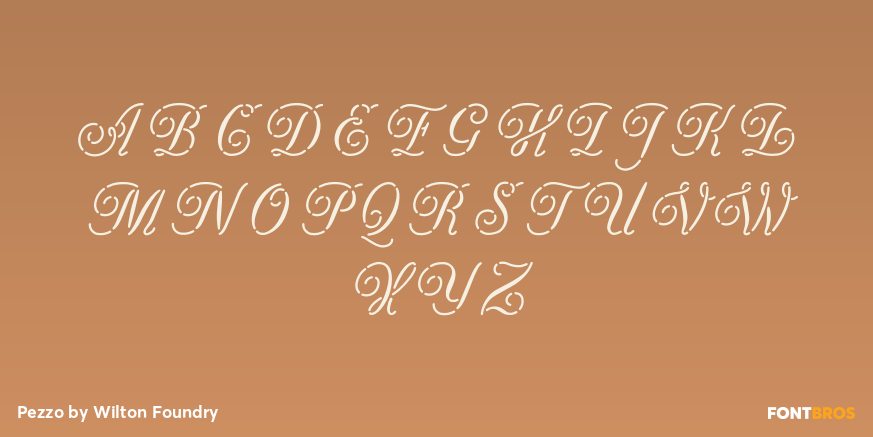
Pezzo
Font Family by Wilton Foundry
The idea for Pezzo was born when I saw an old copper monogram stencil. The script forms are inspired by titles and signature inscriptions on several Dutch seventeenth century paintings, where brushes were used rather than quills. There is little variation between horizontal and vertical strokes and that's what caught my eye. By default, the brush strokes formed simple round endings. Combined with the unusual breaks in the copper stencils, I considered this treatment would create an interesting contemporary script. Pezzo's alternate characters, used in conjunction with the regular characters, gives you flexibility when characters overlap, particularly on repeat ascenders and descenders. Pezzo is an ideal font for boutique logos, menus, invitations, announcements, certificates, brochures, headlines, and anywhere you need the elegance of script but with a contemporary boldness.